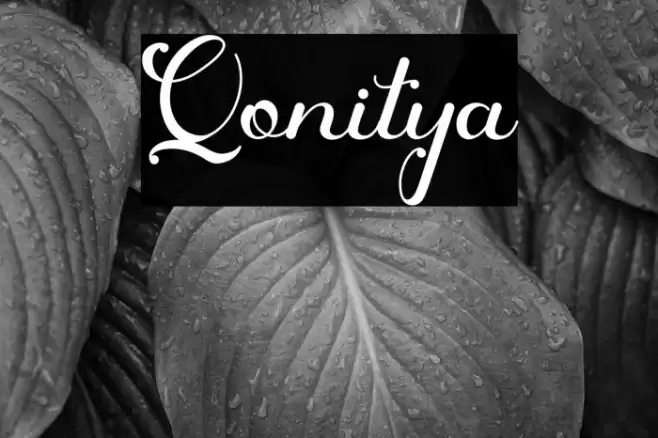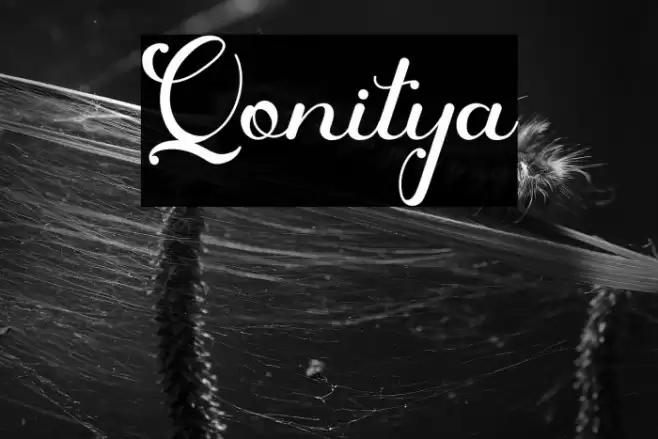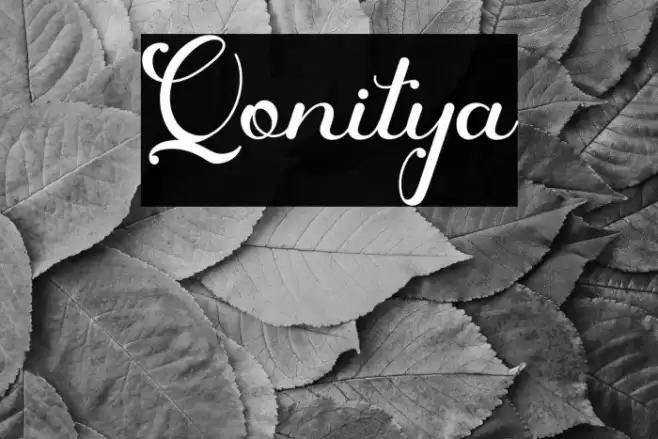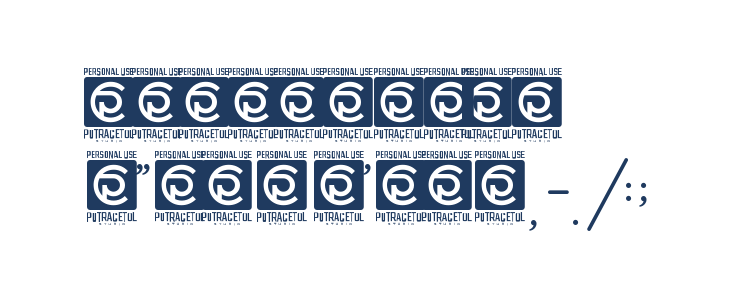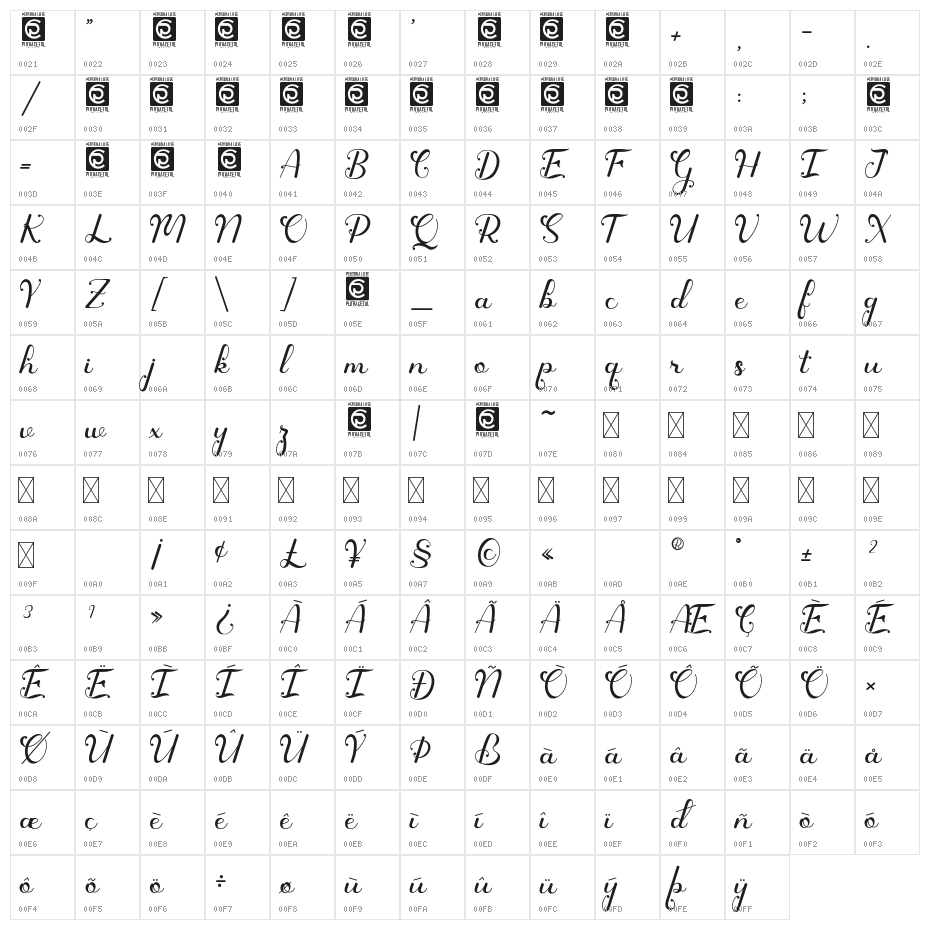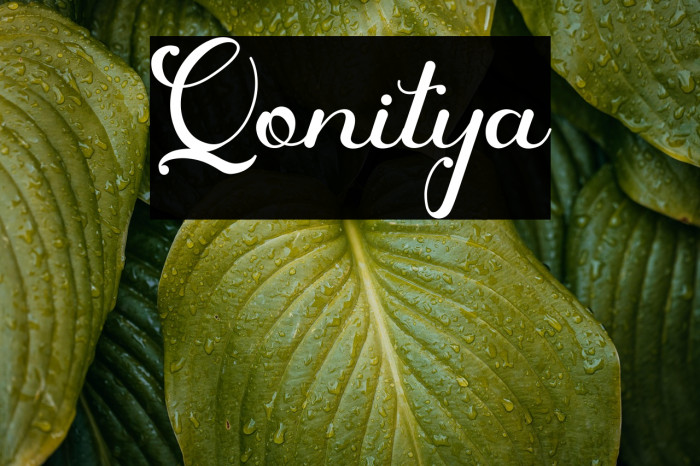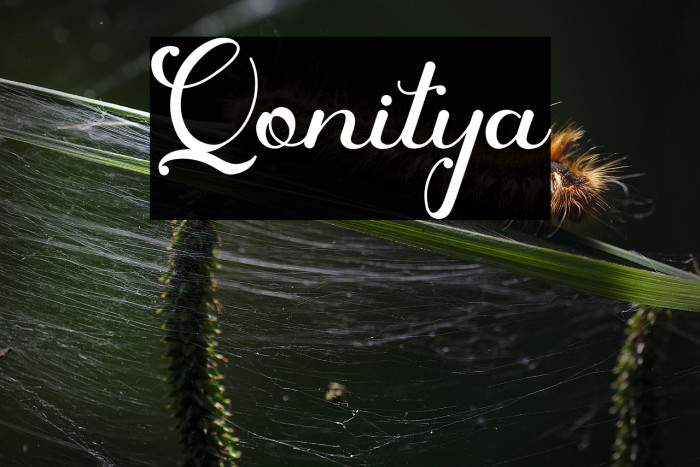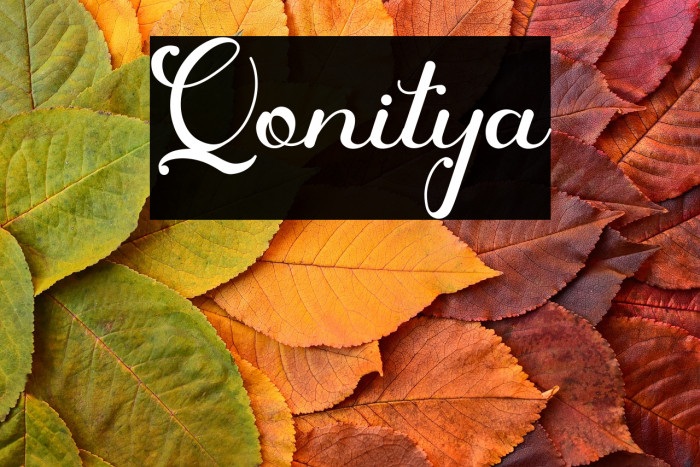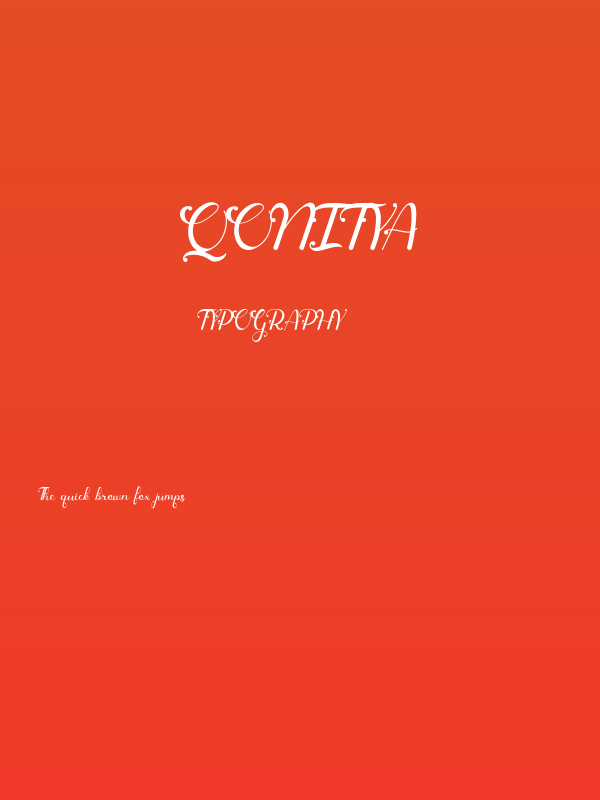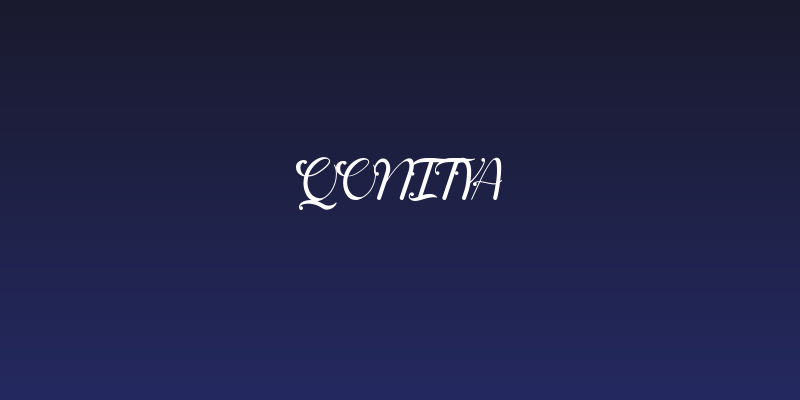
Qonitya Font
Qonitya Description
This font features an elegant, flowing script style with a touch of sophistication. The uppercase letters are adorned with subtle flourishes, giving them a decorative and artistic appearance. The lowercase letters maintain a consistent flow, enhancing readability while retaining a stylish flair. The font's overall design is reminiscent of classic calligraphy, with smooth curves and a graceful presence. It is well-suited for projects that require a touch of elegance and refinement, such as invitations, greeting cards, and branding materials. The font's unique character and charm make it a versatile choice for various creative applications.
An elegant script font with decorative flourishes and classic calligraphy style from Regular fonts.
- Proposed Projects: Ideal for wedding invitations, greeting cards, branding, and elegant design projects.
- Overall Style: Classic